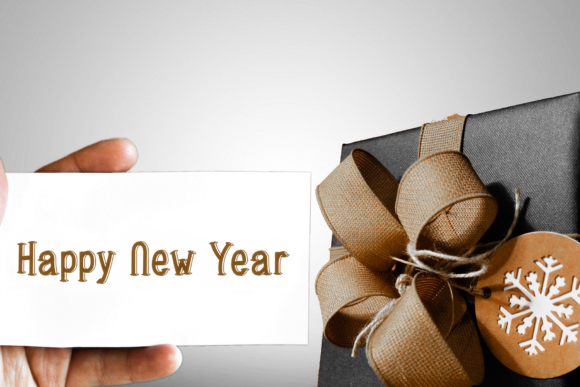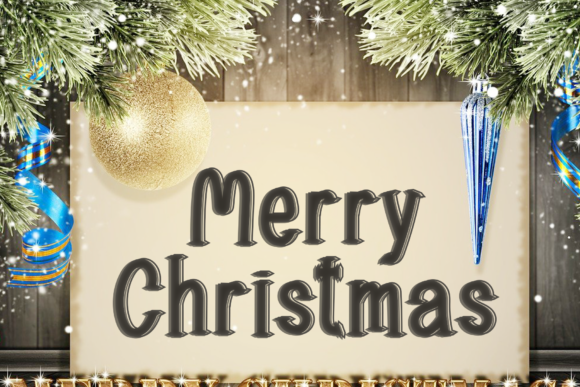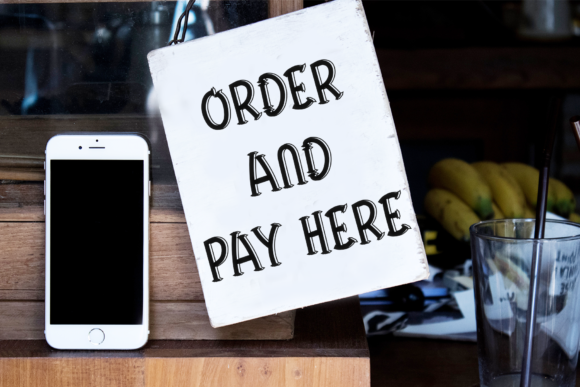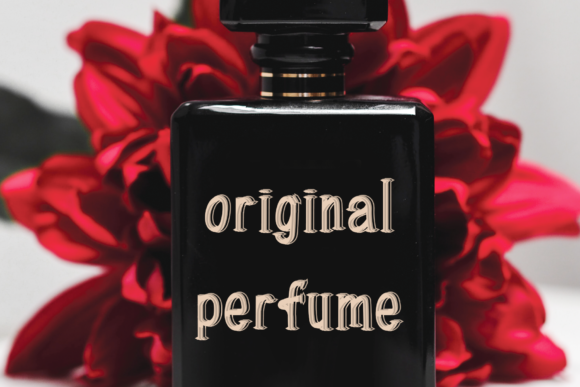
Discover the Amazing Wednesday Font: Elevate Your Designs with this Unique Display Font
Are you tired of using the same old fonts in your designs? Look no further! Introducing the Amazing Wednesday Font, a neat and interesting display font that is sure to take your designs to the next level. With its unique and stylish appearance, this font is perfect for a variety of formal and informal designs. In this article, we’ll explore the features and benefits of the Amazing Wednesday Font and how you can use it to elevate your designs.
What is the Amazing Wednesday Font?
The Amazing Wednesday Font is a display font that is designed to make a statement. Its unique and stylish appearance makes it perfect for designs that require a bit of flair. Whether you’re working on a formal or informal project, this font is sure to impress. From bold and eye-catching headlines to elegant and sophisticated text, the Amazing Wednesday Font is versatile and can be used in a variety of design applications.
Features of the Amazing Wednesday Font
So, what makes the Amazing Wednesday Font so special? Here are just a few of its key features:
- Unique and stylish appearance: The Amazing Wednesday Font has a one-of-a-kind design that is sure to grab attention.
- Versatile: This font can be used in a variety of design applications, from formal to informal.
- Elegant and sophisticated: The Amazing Wednesday Font has an air of elegance and sophistication, making it perfect for designs that require a bit of class.
- Easy to read: Despite its unique design, the Amazing Wednesday Font is easy to read, making it perfect for body text and headlines.
Benefits of Using the Amazing Wednesday Font
So, why should you use the Amazing Wednesday Font in your designs? Here are just a few benefits:
- Adds visual interest: The Amazing Wednesday Font adds visual interest to your designs, making them more engaging and attention-grabbing.
- Enhances creativity: With its unique design, the Amazing Wednesday Font can help inspire creativity and take your designs to the next level.
- Perfect for branding: The Amazing Wednesday Font is perfect for branding and can help create a unique and recognizable identity for your business or organization.
How to Use the Amazing Wednesday Font
Using the Amazing Wednesday Font is easy! Here are just a few tips:
- Pair it with other fonts: The Amazing Wednesday Font pairs well with other fonts, so don’t be afraid to experiment and find the perfect combination.
- Use it for headlines: This font is perfect for headlines and titles, where its unique design can really shine.
- Experiment with different colors: The Amazing Wednesday Font looks great in a variety of colors, so don’t be afraid to try out different options.
In conclusion, the Amazing Wednesday Font is a unique and stylish display font that is sure to elevate your designs. With its versatile design, elegant appearance, and ease of use, this font is perfect for a variety of formal and informal design applications. Whether you’re a designer, crafter, or simply someone looking to add a bit of flair to your projects, the Amazing Wednesday Font is a great choice. So why wait? Download the Amazing Wednesday Font today and see the amazing difference it can make in your designs!
Amazing Wednesday is a neat and interesting display font. It looks great on a variety of formal and informal designs so add it confidently and you will love the outcome.